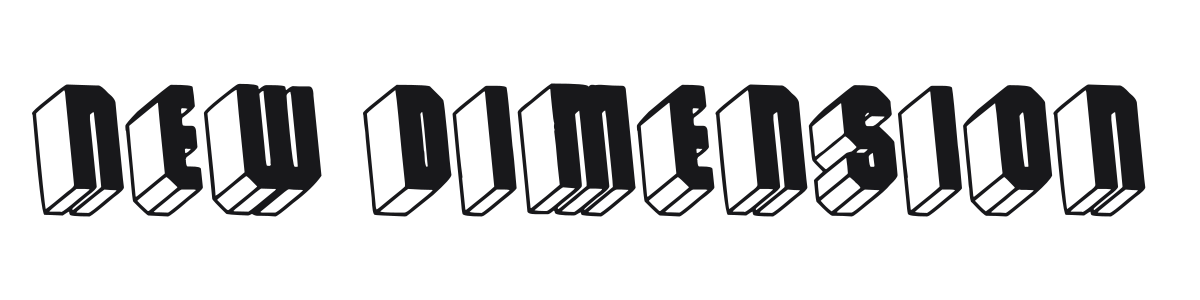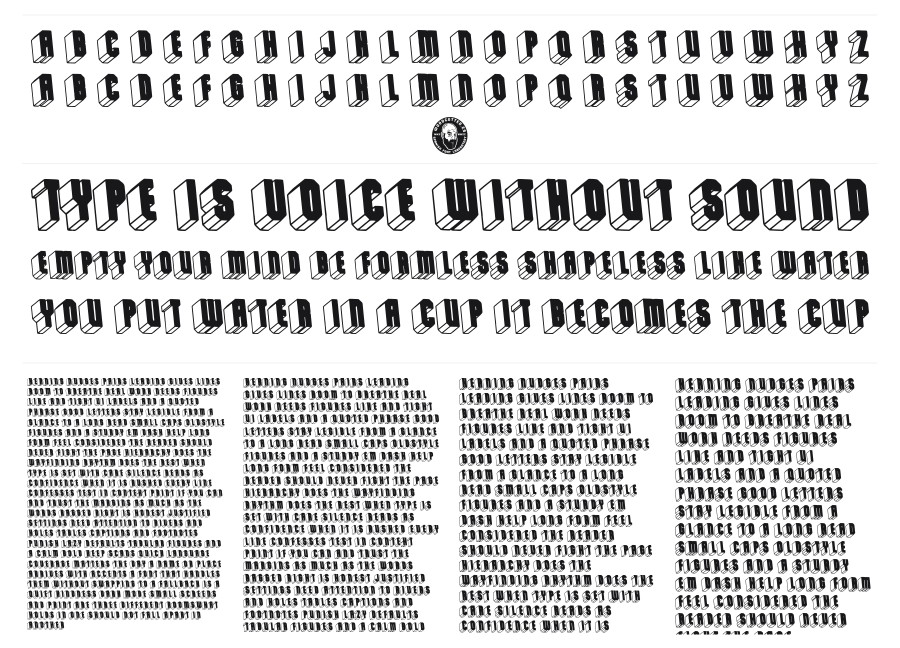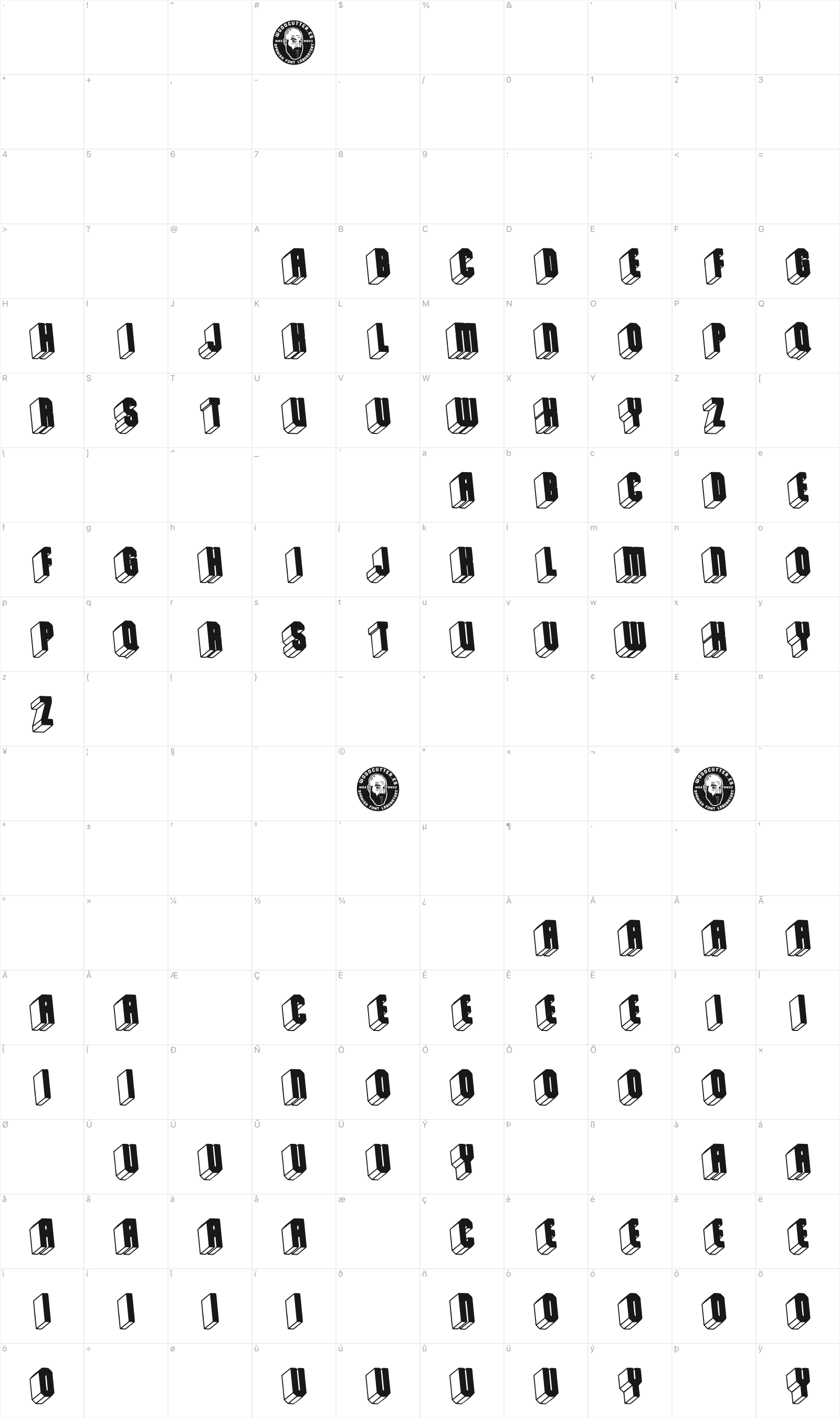
New Dimension
New Dimension is a bold extruded display font from Woodcutter Manero that pushes every character into dramatic 3D relief. Blackletter angularity meets thick geometric extrusion, with ruled-line shading on the depth faces that gives it a vintage screen-printed texture. It demands large sizes and dark backgrounds.